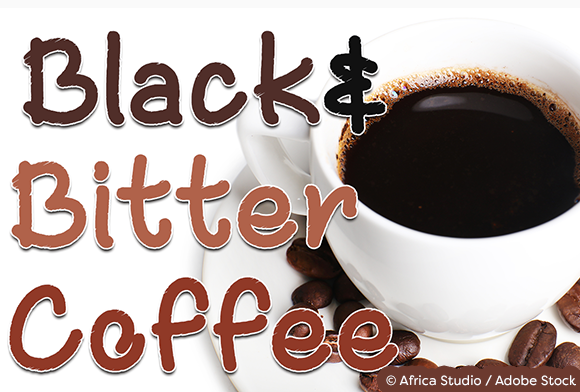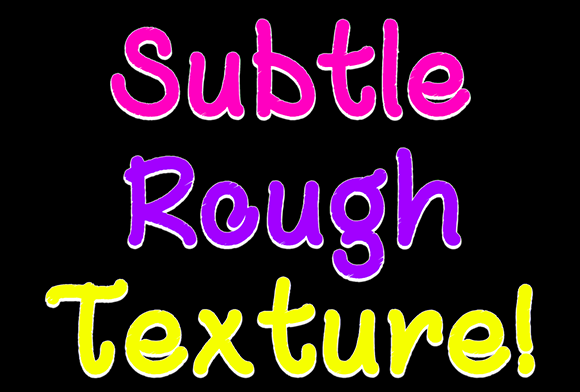
Black and Bitter Coffee Font
About Black and Bitter Coffee Font
“Black and Bitter Coffee is a textured handwritten font that is great for a variety of projects! Tip: This font looks better in larger sizes so that the texture shows! I recommend 100 pt or above.”